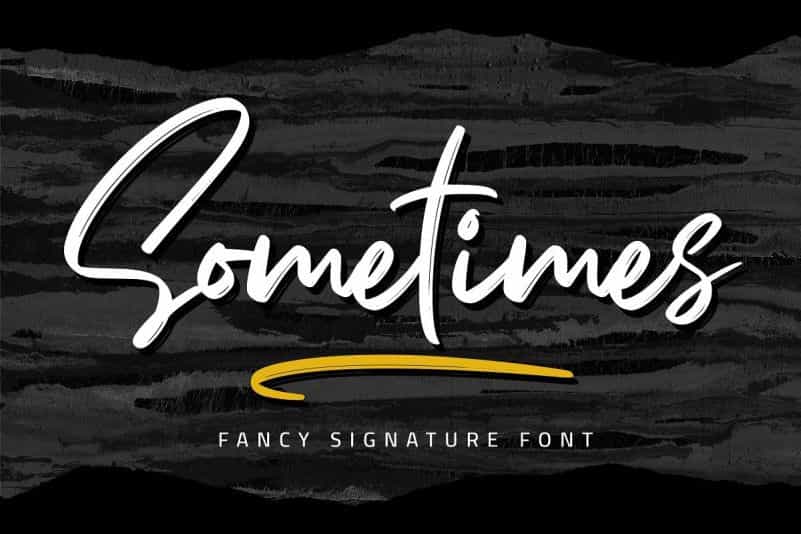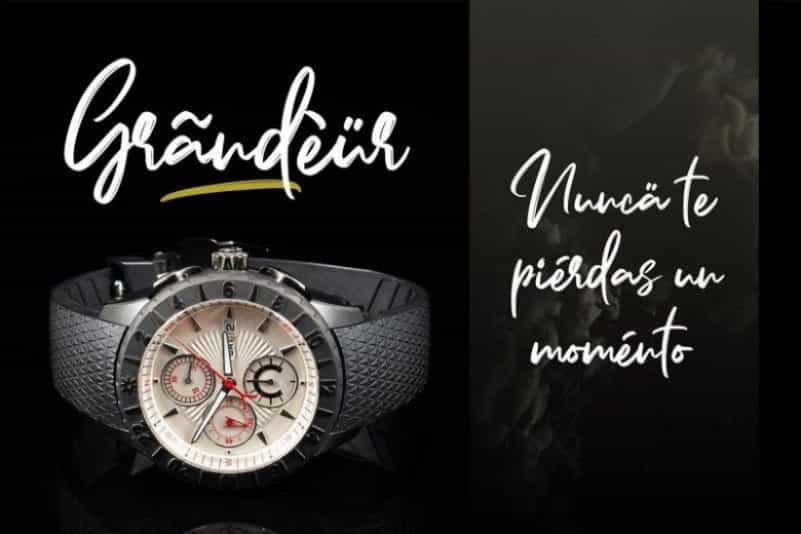
“Sometimes”, the Fancy text signature font that comes in 2 styles – regular and Slant. The font is made look elegant and great in many ways to your latest project, by luxury and branded stuffs. Sometimes is just right for logos & branding, photography, invitation, watermarking, advertisements and product designs.